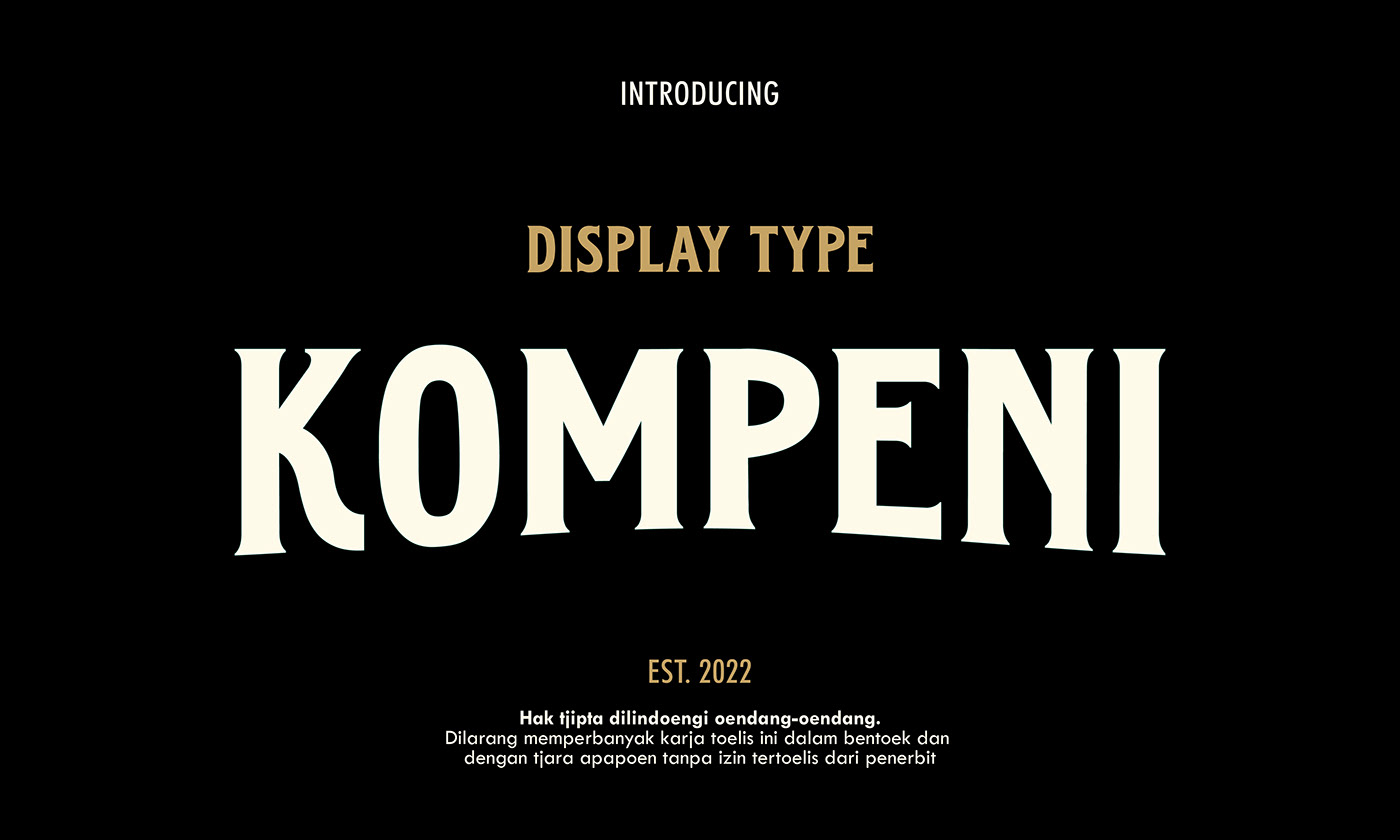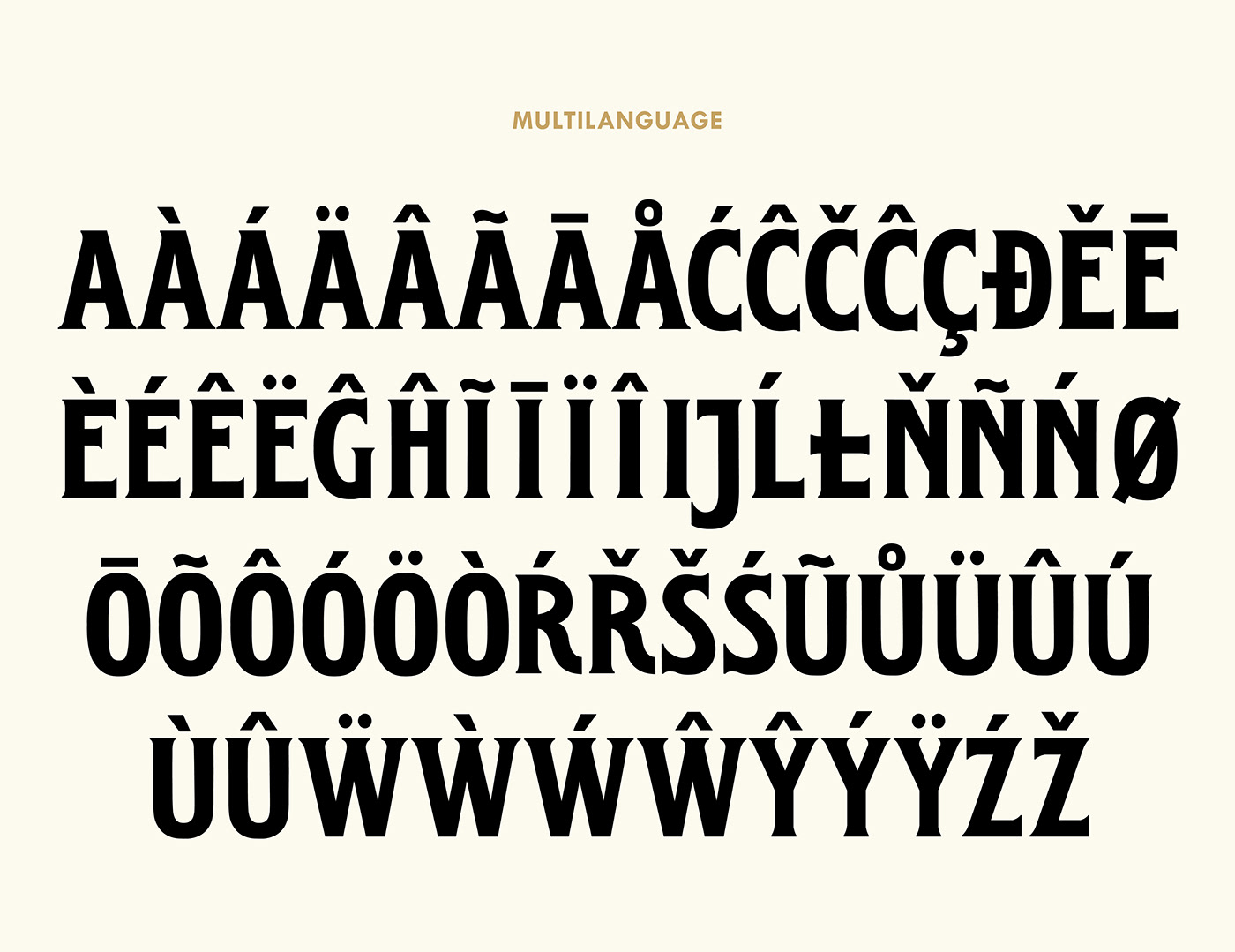
Kompeni - Serif Display Font
Download Kompeni, a vintage serif display font from Fredella Agatha. This typeface is perfect for headlines, posters, badges and package design.